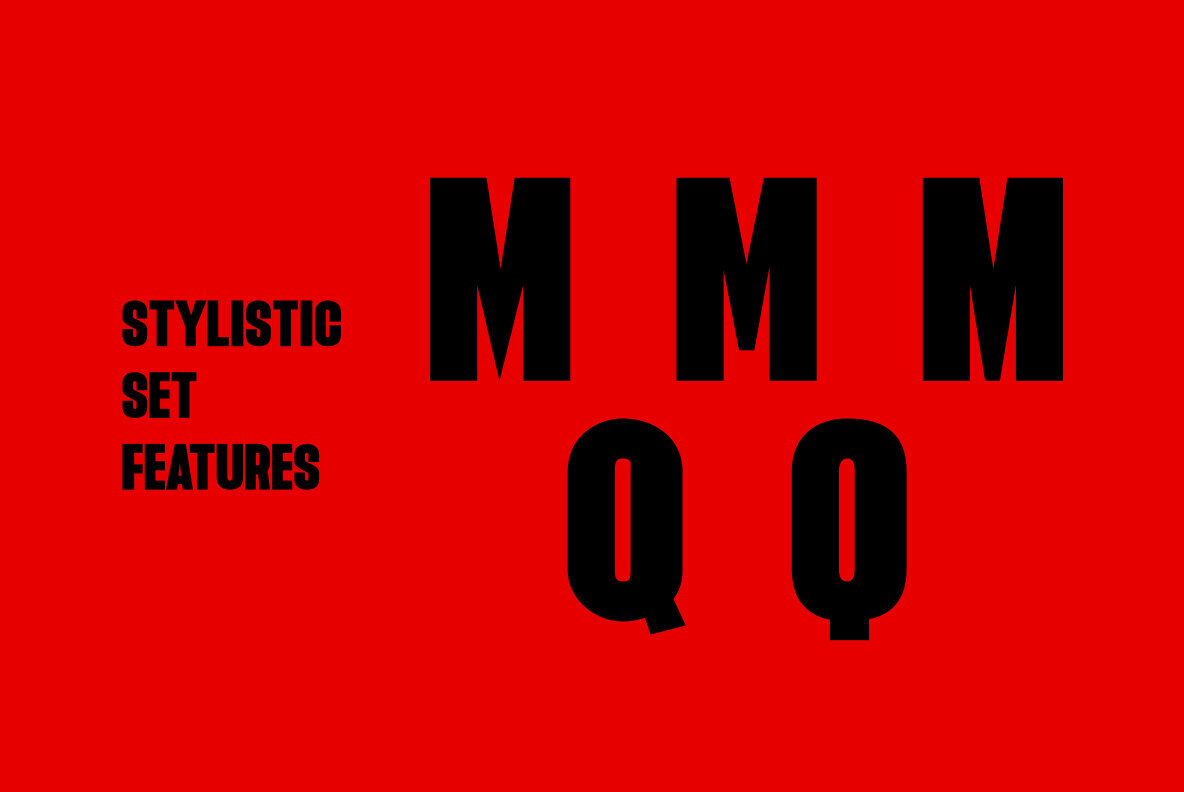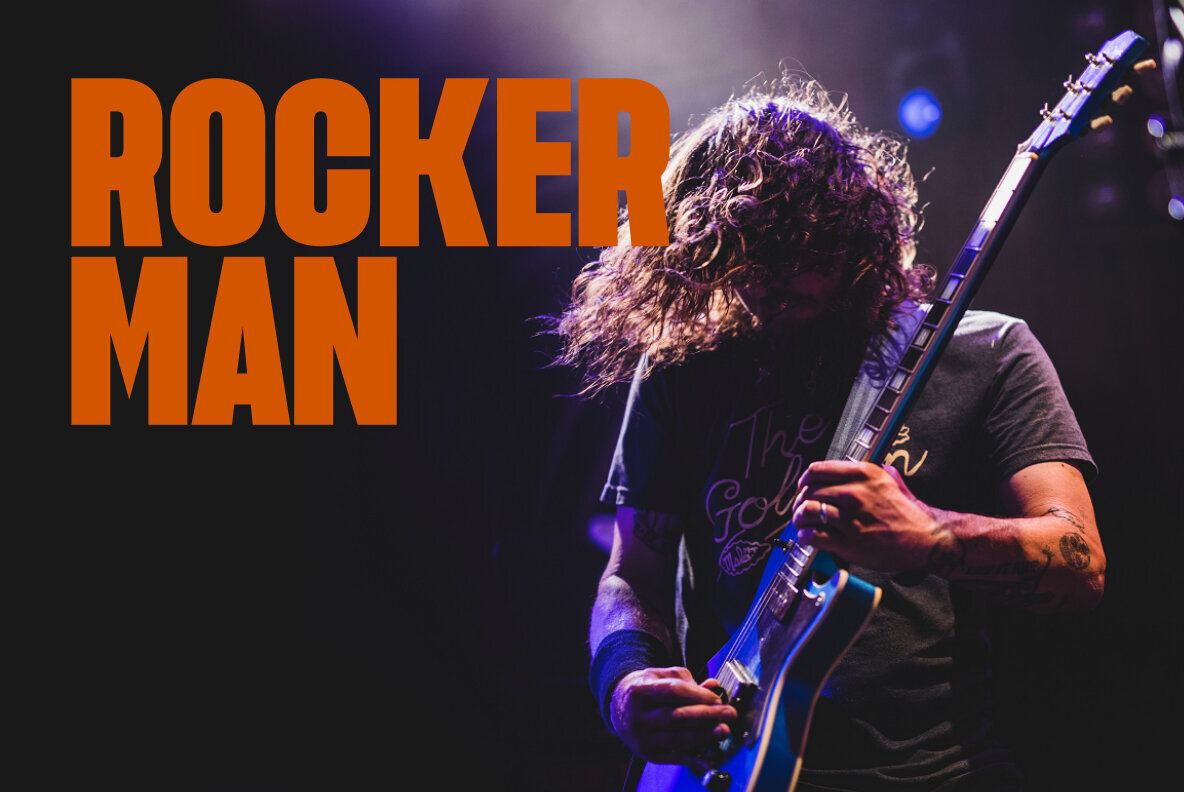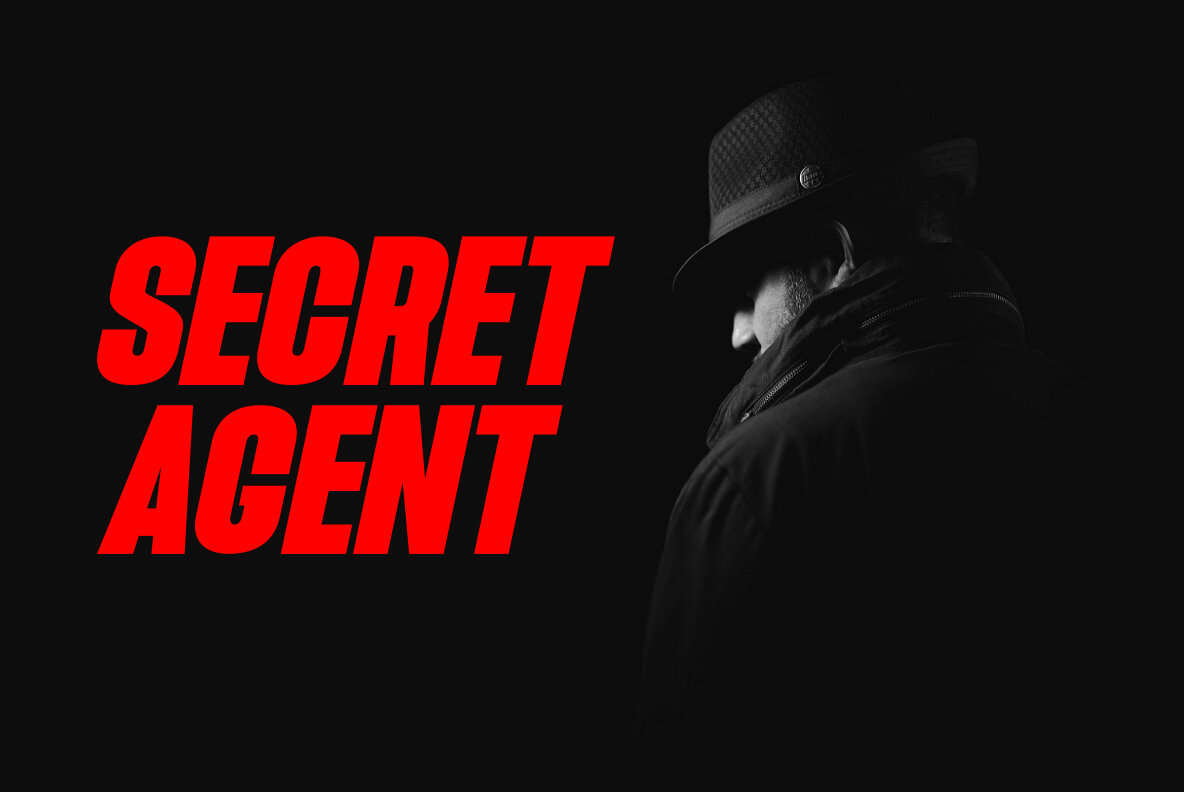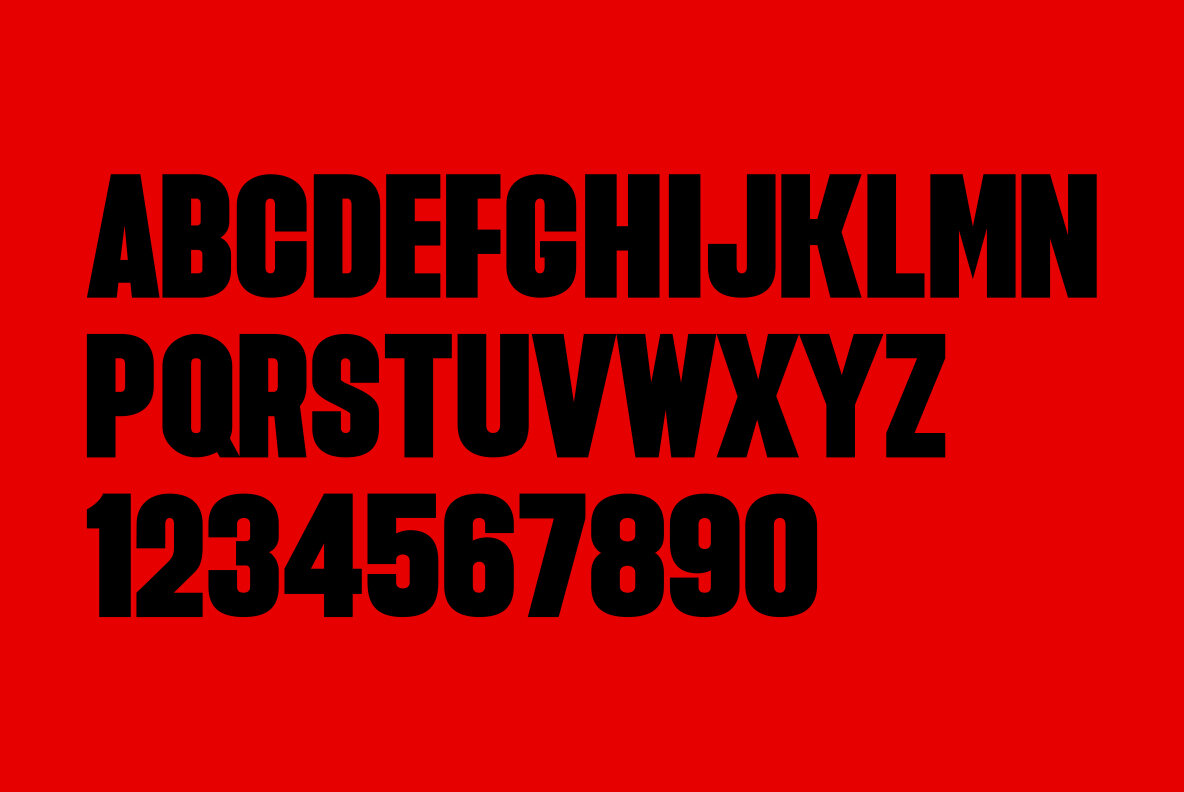
Beat Font
Beat Regular
Beat Italic
Inspired by street posters, this font combines the value of beauty and authenticity in its creation. and the stylistic set feature adds variety to the anatomy of the letters, this font belongs to the display category which is suitable for use in graphic designs such as posters, billboards, and large size graphic designs.